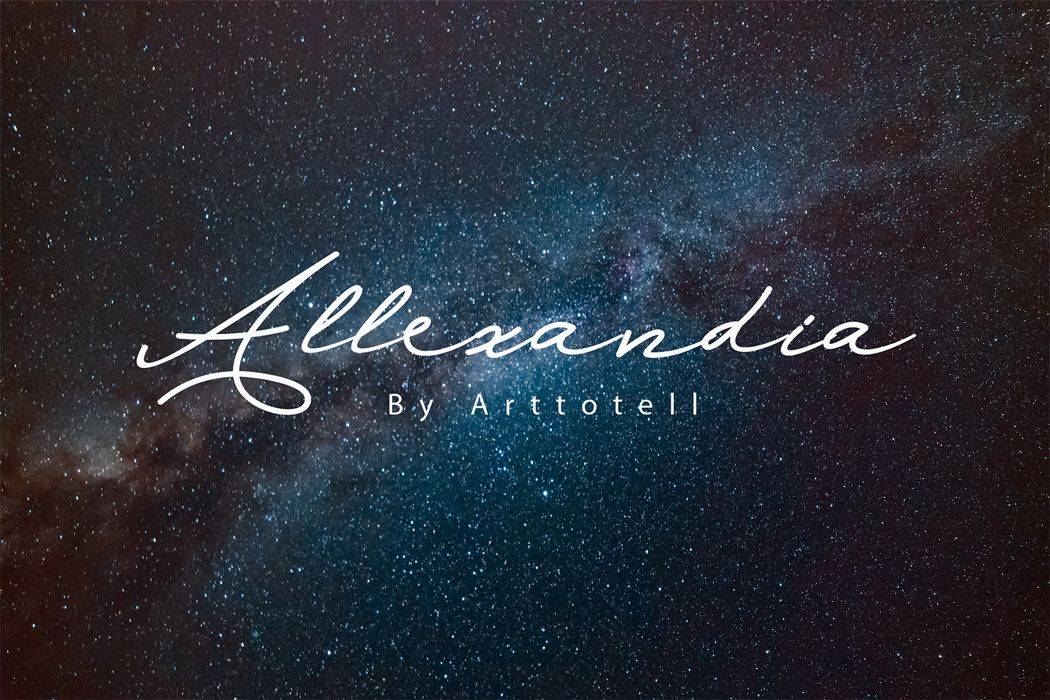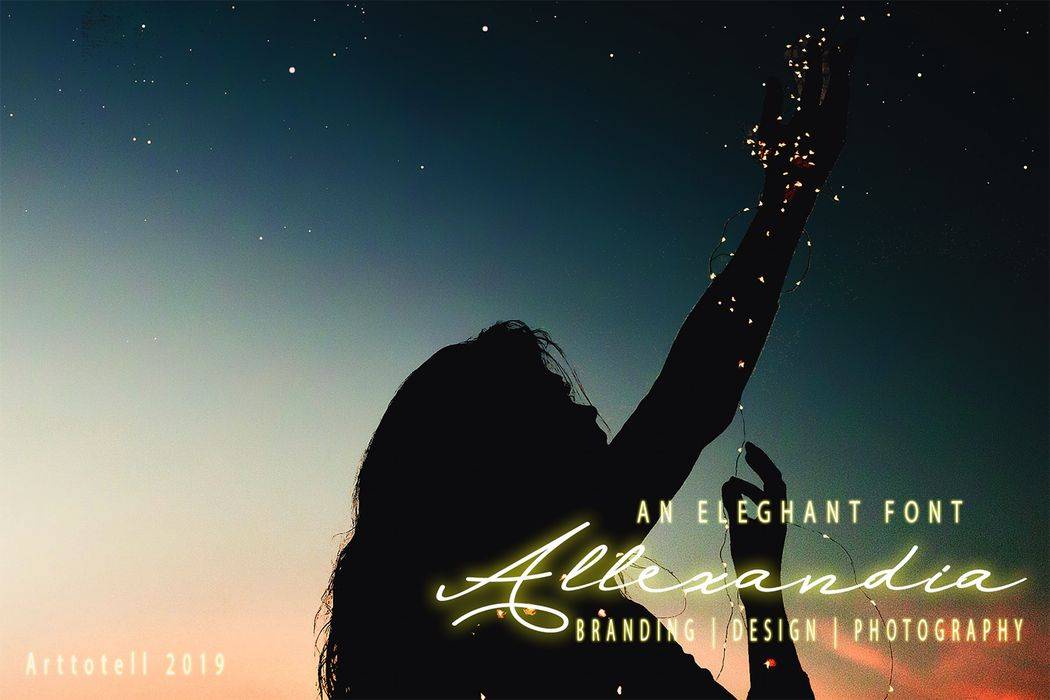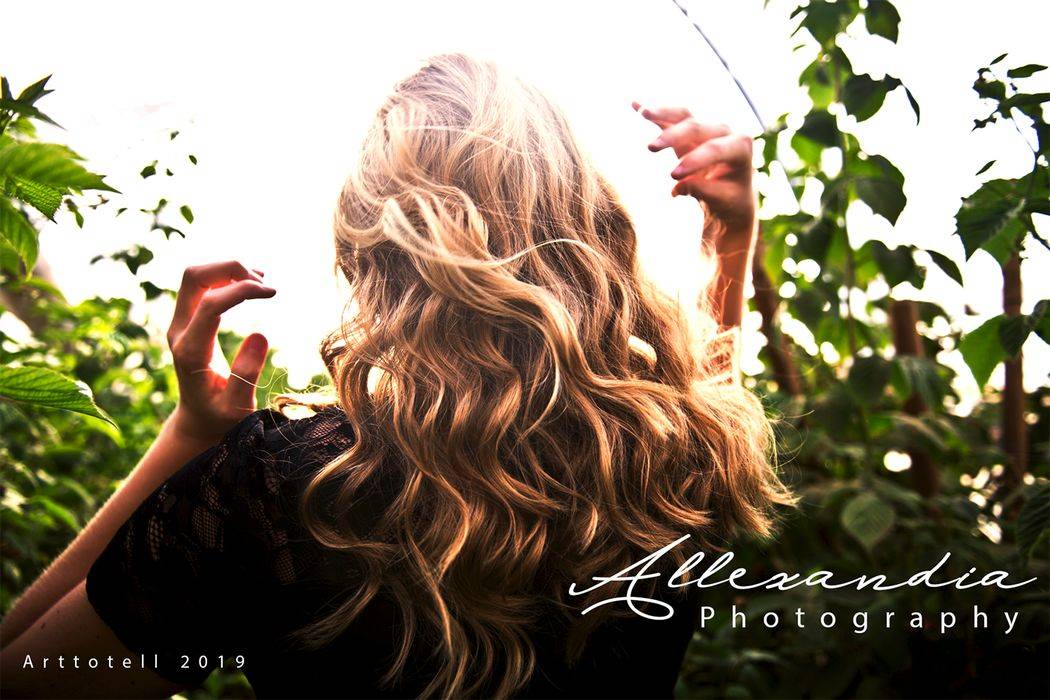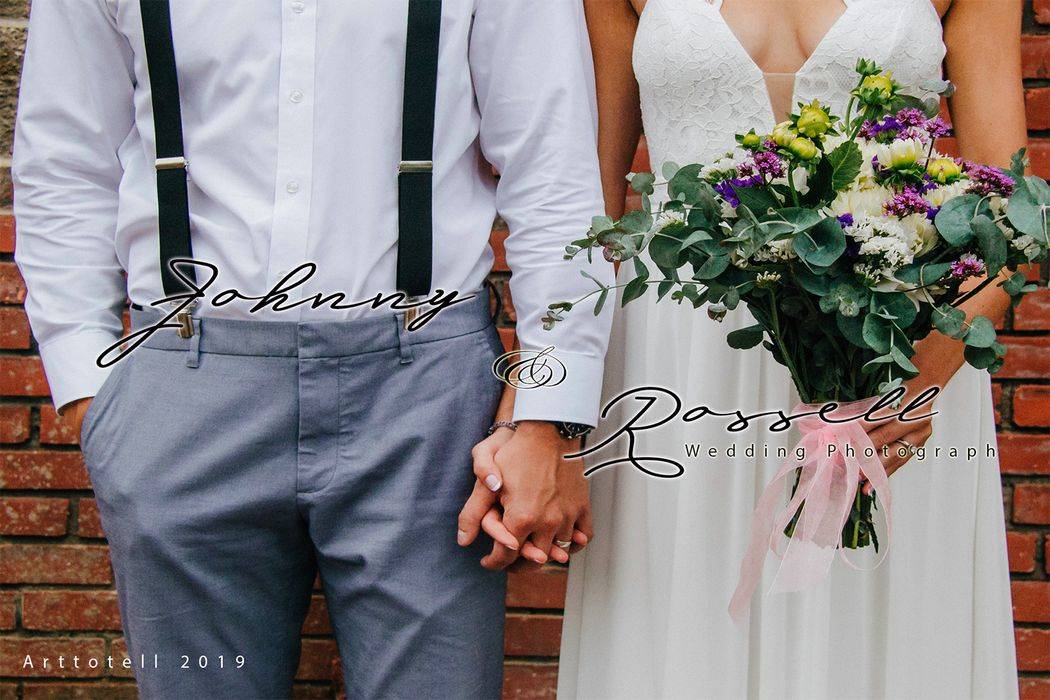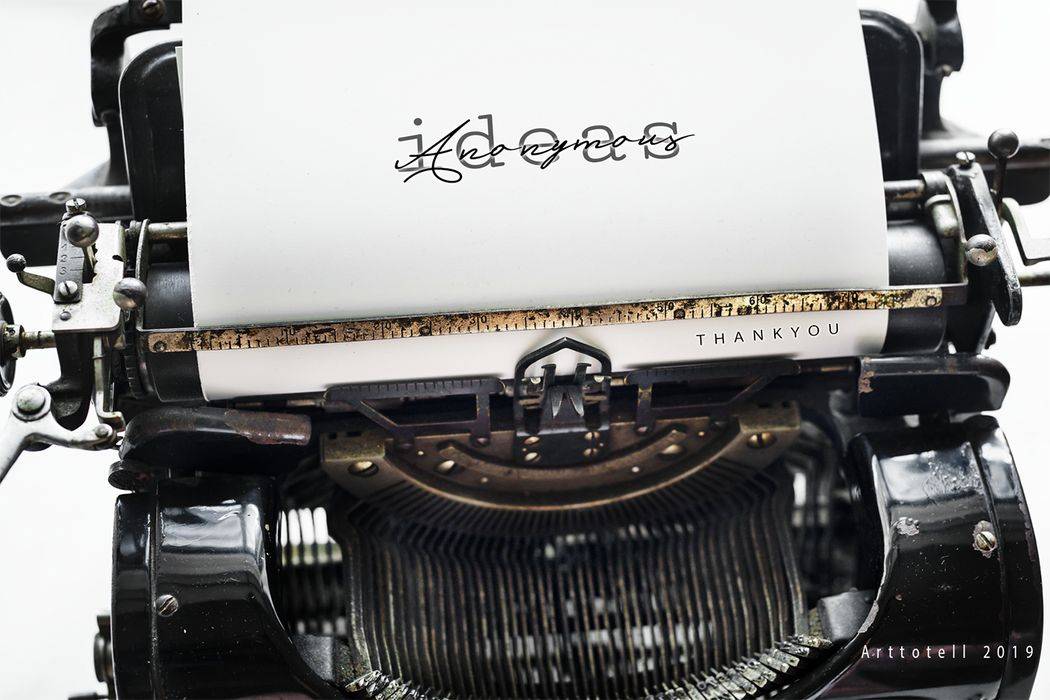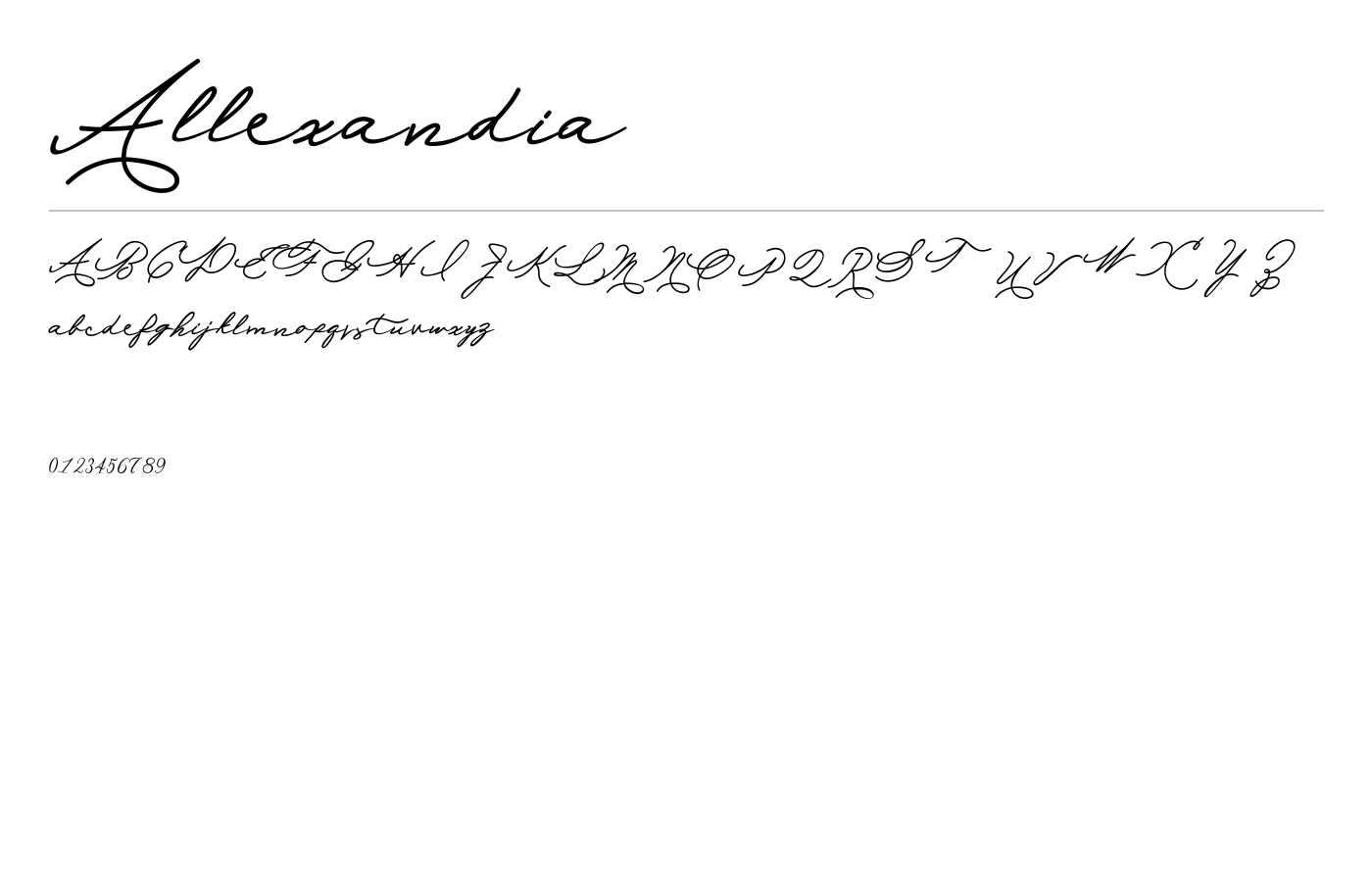
Allexandia is an elegant, cursive script font featuring delicate, flowing strokes that mimic refined handwriting. Its thin lines and intricate letterforms make it ideal for sophisticated branding, wedding invitations, and luxury packaging, where a personal and graceful touch is desired. This font’s classic yet stylish character adds warmth and charm to any design.
Allexandia Font
About Allexandia Font
| Font family | Allexandia Font |
| Designer | Arttotell 2019 |